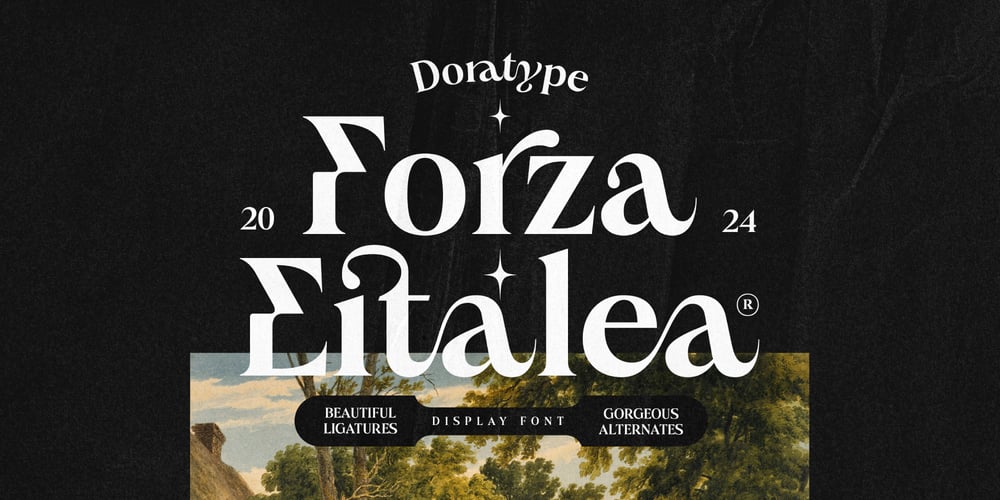
Forza Eitalea Font Family was designed by Zahratul Laila and published by Dora Typefoundry. Forza Eitalea contains 1 styles and family package options. Introducing Forza Eitalea is a classic and classy modern serif typeface that radiates and is bold and looks amazing in both large and small settings. Forza Eitalea also has a wide selection of alternatives and ligatures ideal for any project that requires a touch of vintage charm and a modern aesthetic.Features All Uppercase and Lowercase Numbers & Symbols Supported Languages Alternates and Ligatures PUA Encoded We strongly recommend using programs that support OpenType features and Glyphs panels such as Adobe and Corel Draw applications, so you can view and access all variations of Glyphs.Families like this have become a true labor of love, making it as easy and enjoyable as possible. I really hope you enjoy it!if you have any questions or problems please contact email: doratypefoundry@gmail.comHappy designing!